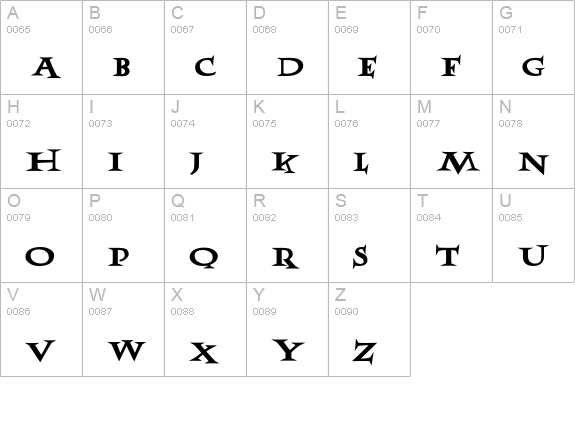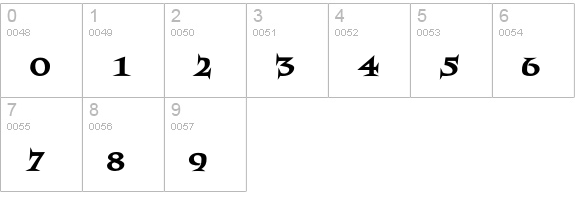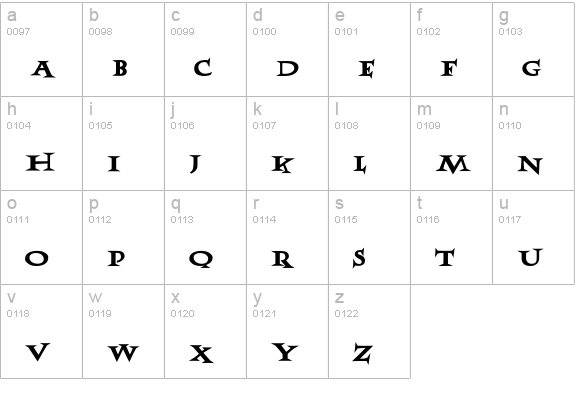
AblefontPress Font Details
Introducing AblefontPress, a sleek and modern font that exudes sophistication and elegance. This versatile typeface is perfect for a wide range of design projects, from branding to editorial design and everything in between. With its clean lines and stylish curves, AblefontPress is sure to make your projects stand out. The best part? AblefontPress is available for free! You can download this stunning font at FontsMarket.com and start using it in your designs today. Don't miss out on this opportunity to elevate your work with the beauty and versatility of AblefontPress.